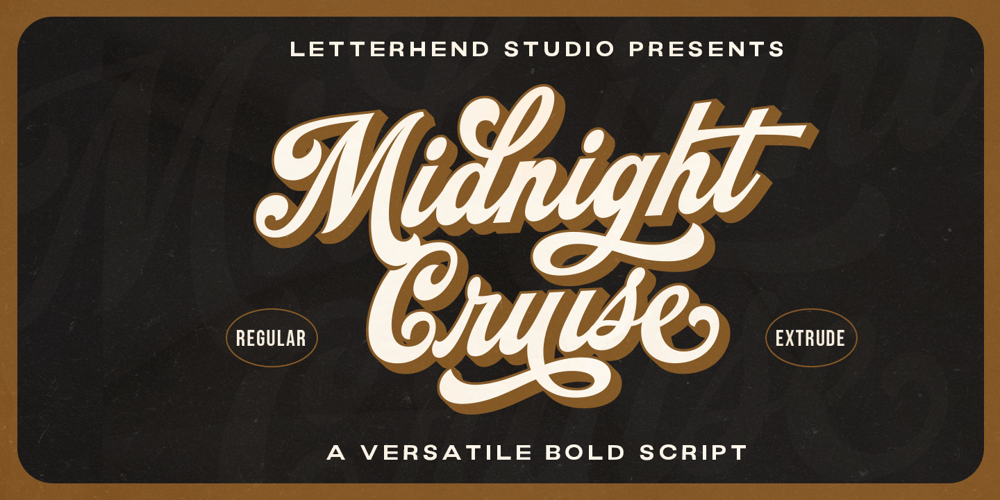
Midnight Cruise
Midnight Cruise font
Midnight Cruise Font Family was designed by Hendry Juanda and published by Letterhend. Midnight Cruise contains 2 styles and family package options. Introducing, Midnight Cruise – a standout bold script with a touch of classic looks. This type of font perfectly made to be applied especially in logo, headline, signage and the other various formal forms such as invitations, labels, logos, magazines, books, greeting / wedding cards, packaging, fashion, make up, stationery, novels, labels or any type of advertising purpose.Features : Uppercase & lowercase Numbers and punctuation Alternates & Ligatures Multilingual PUA encoded We highly recommend using a program that supports OpenType features and Glyphs panels like many of Adobe apps and Corel Draw, so you can see and access all Glyph variations.